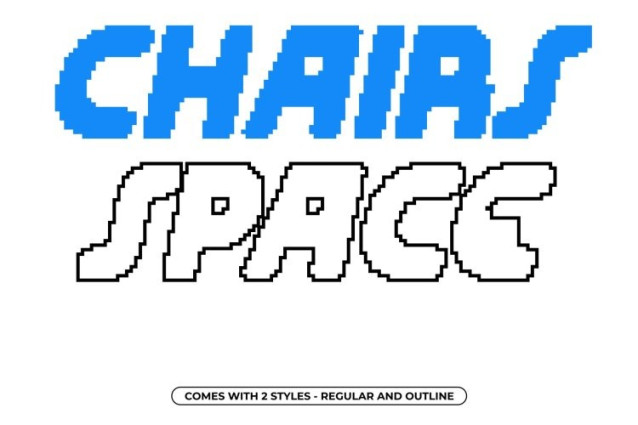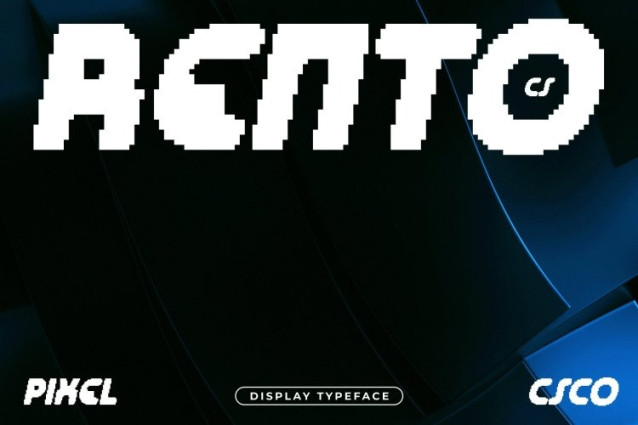
CS Rento Pixel Font
CS Rento Pixel Font This is a bold display font built from strong geometric shapes enhanced with pixel-based detailing. Its solid structure delivers confident visual impact, while rounded edges and pixel construction introduce a softer, more approachable character.
Futuristic Style with Retro-Digital Influence
Combining futuristic design with old-digital pixel aesthetics, this font presents a modern yet nostalgic look. The clean geometric foundation reflects contemporary, tech-inspired design, while the pixel details recall retro computer interfaces and early digital displays. This fusion creates a font that feels forward-looking while honoring the charm of vintage digital visuals.
Fresh, Cheerful, and Cool 8-Bit Impression
This font carries a fresh and cheerful tone with a cool, modern attitude. The pixel style adds playful 8-bit energy, giving the font a lively and optimistic personality. Its softened geometry keeps the look balanced and harmonious, making the typeface engaging, readable, and visually appealing across creative layouts.
Perfect for Titles and Creative Digital Projects
Designed for display use, this font excels in titles, posters, branding, packaging, and digital visuals. Its bold weight ensures strong readability, while the pixel detail adds character and memorability. Ideal for projects seeking a calm futuristic feel mixed with retro-digital charm, this font delivers originality, clarity, and modern pixel appeal.